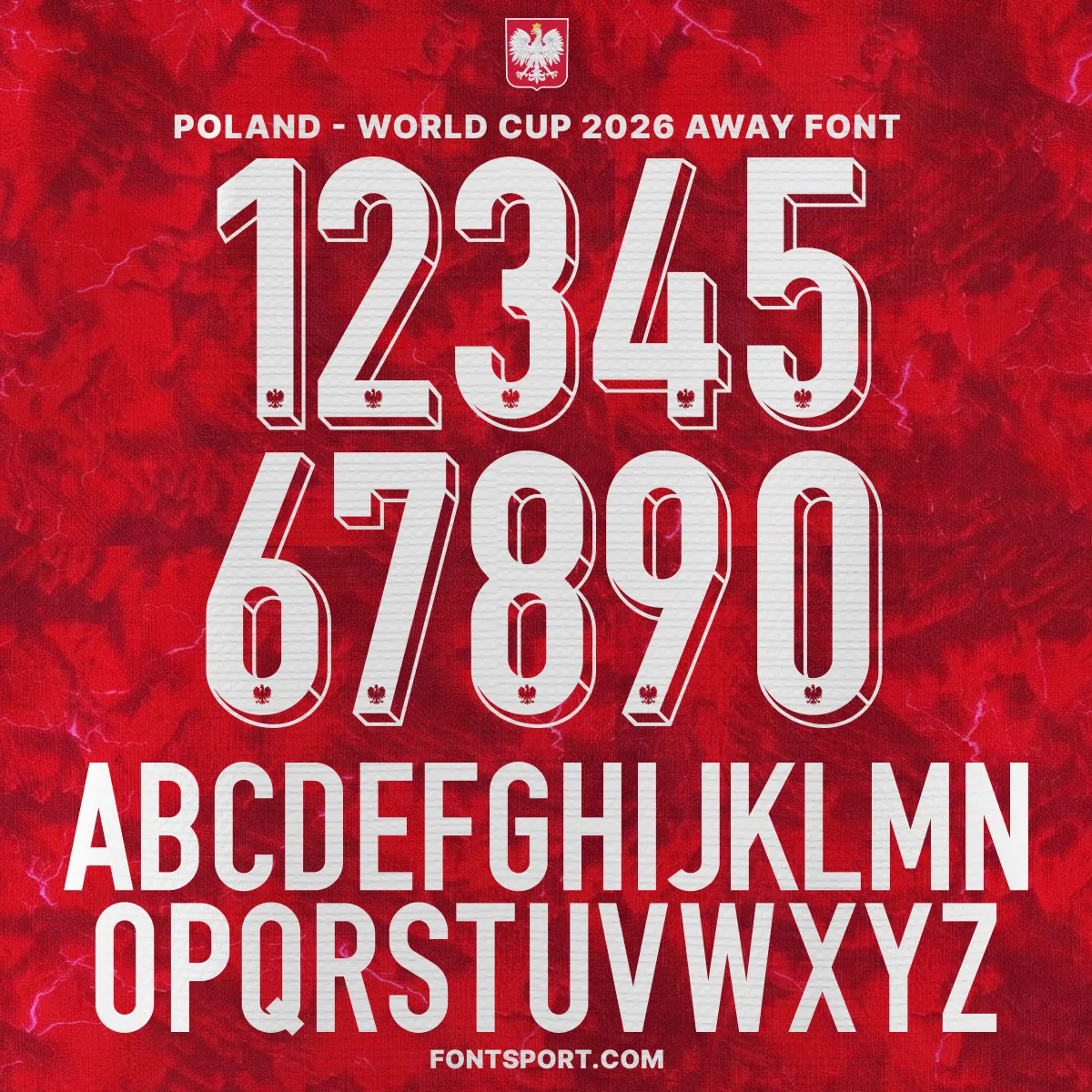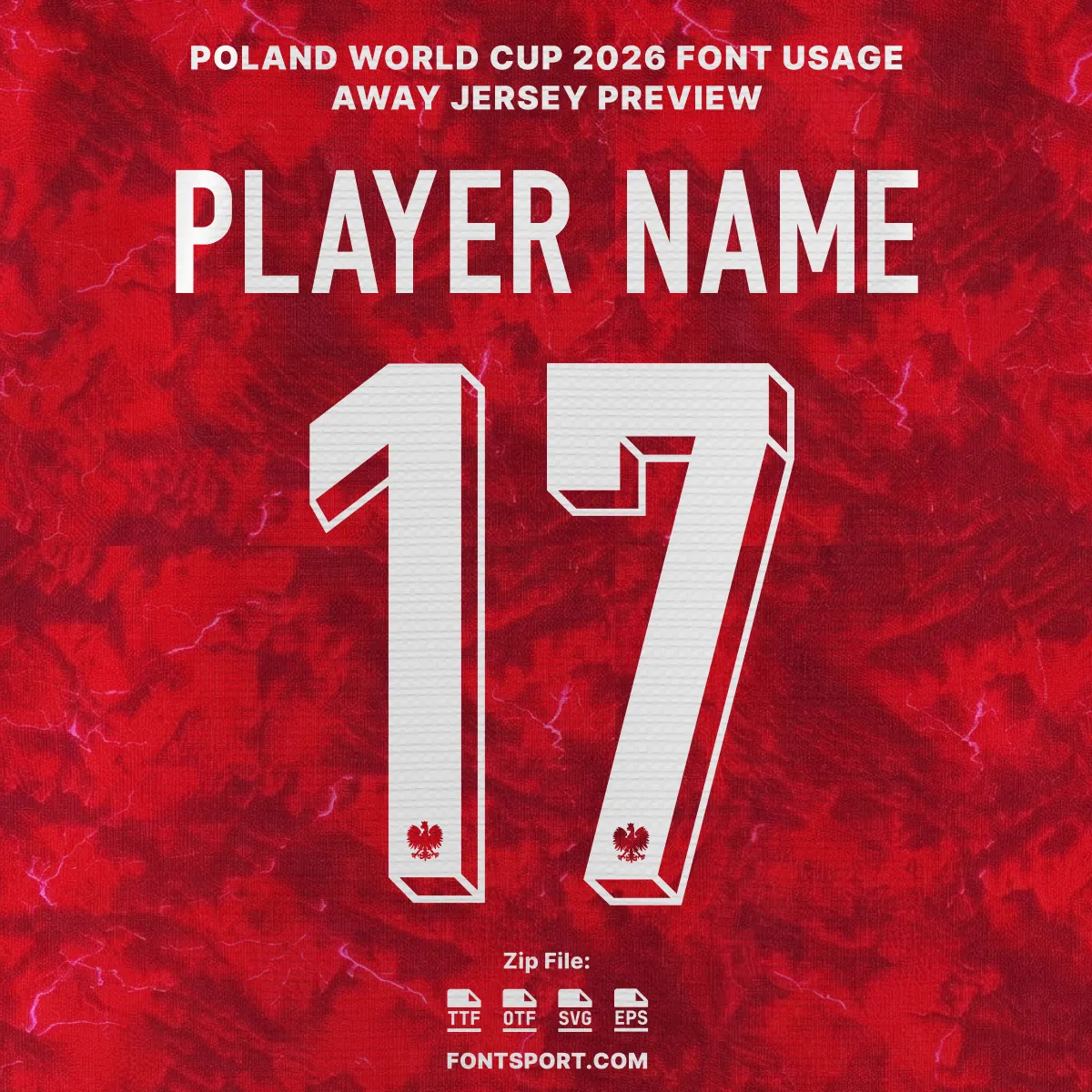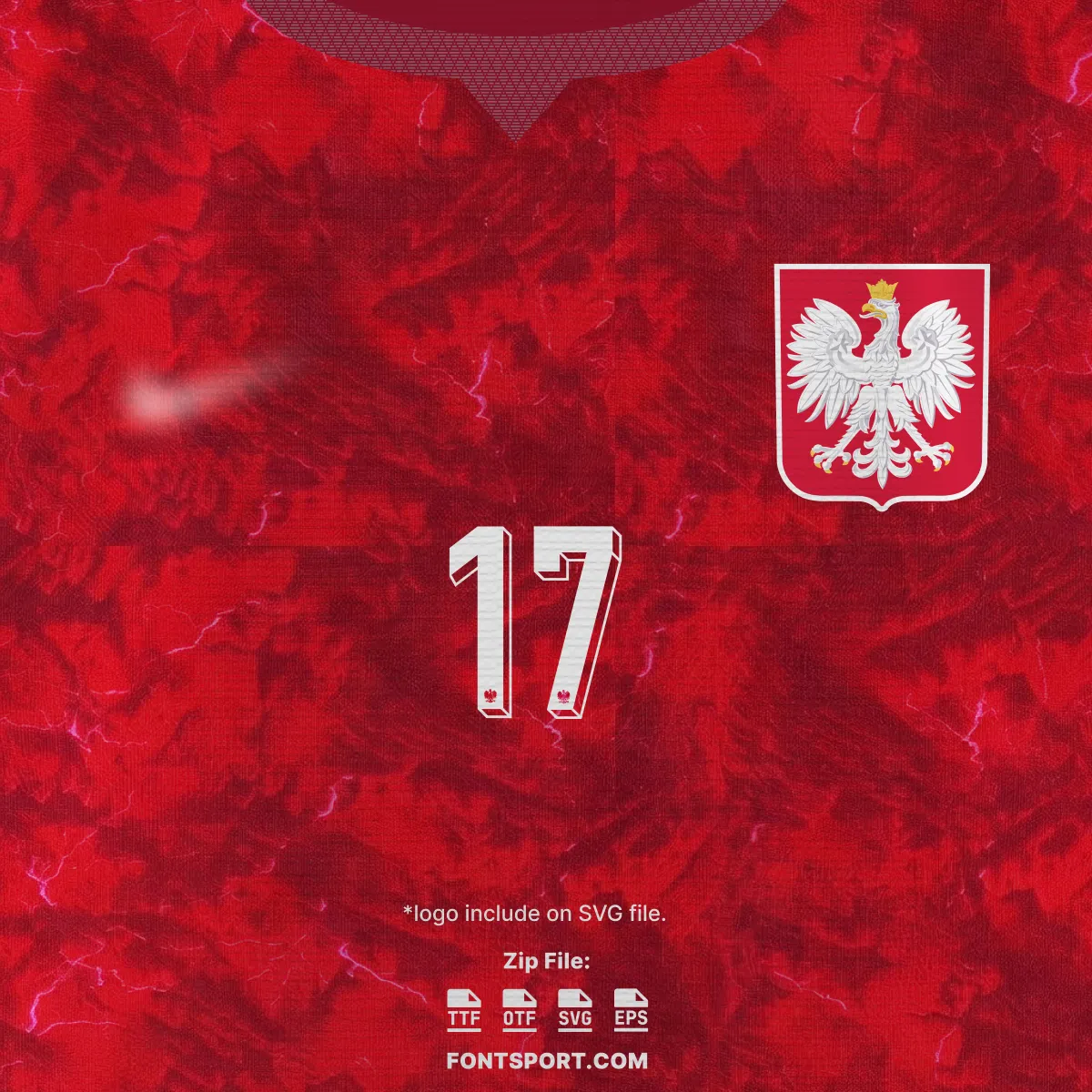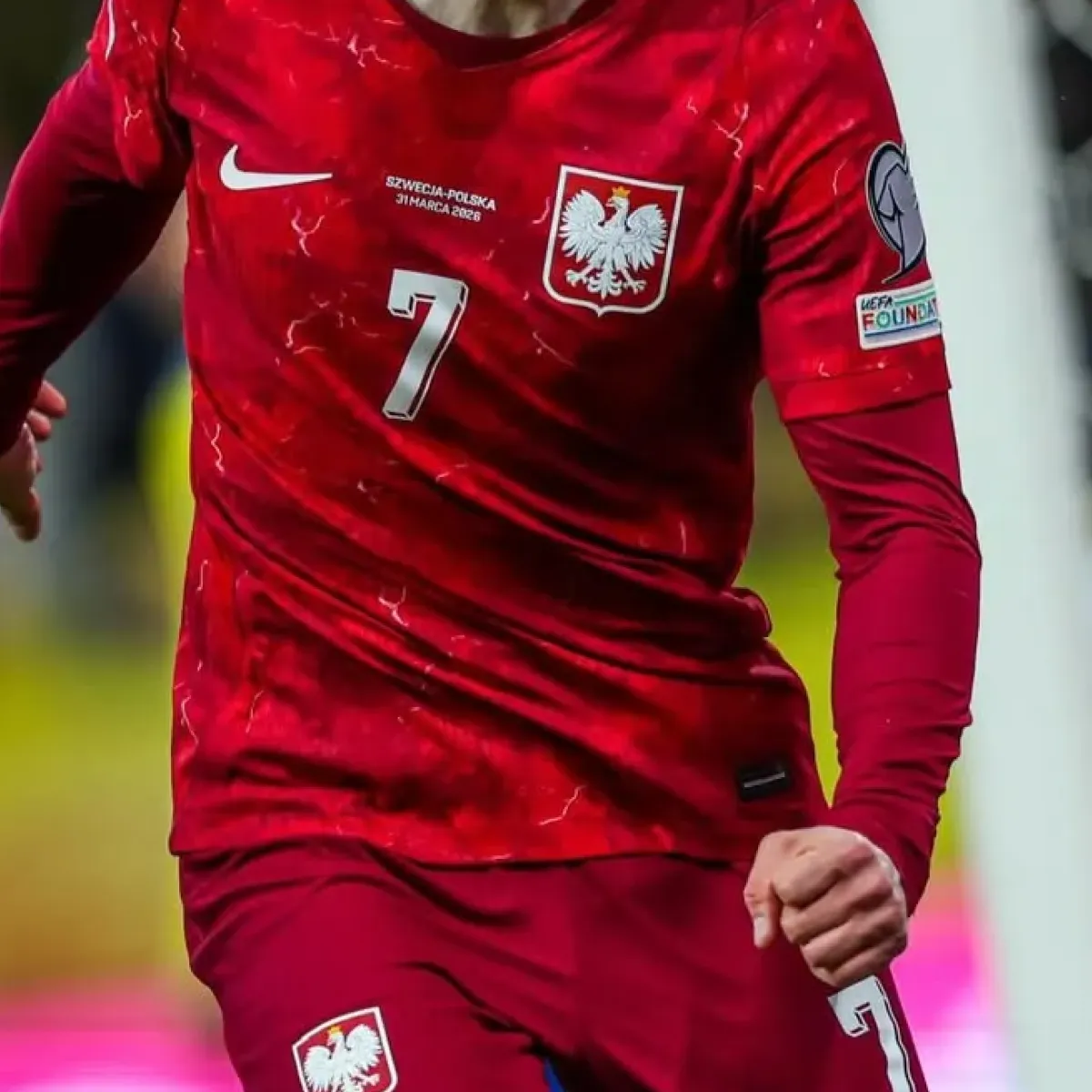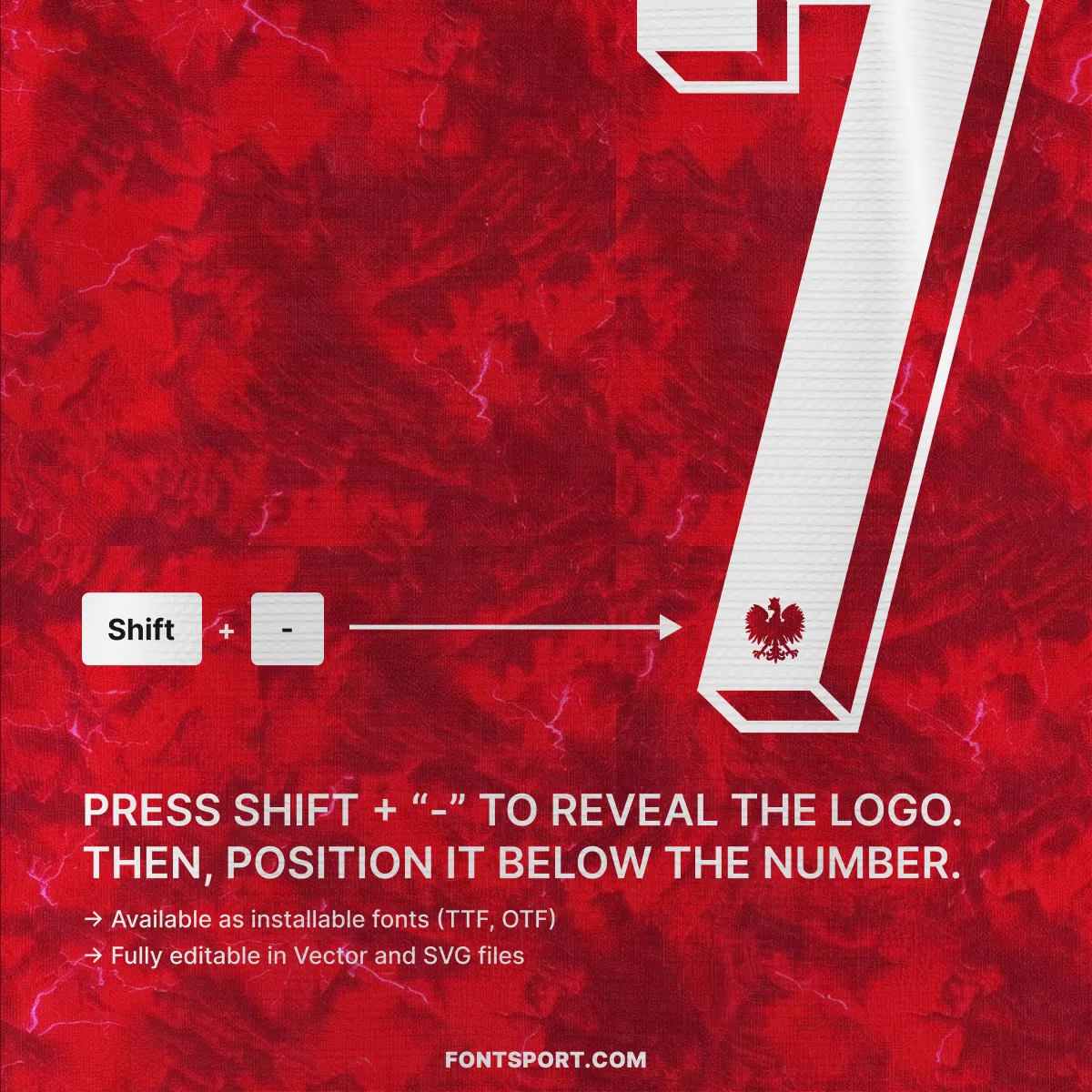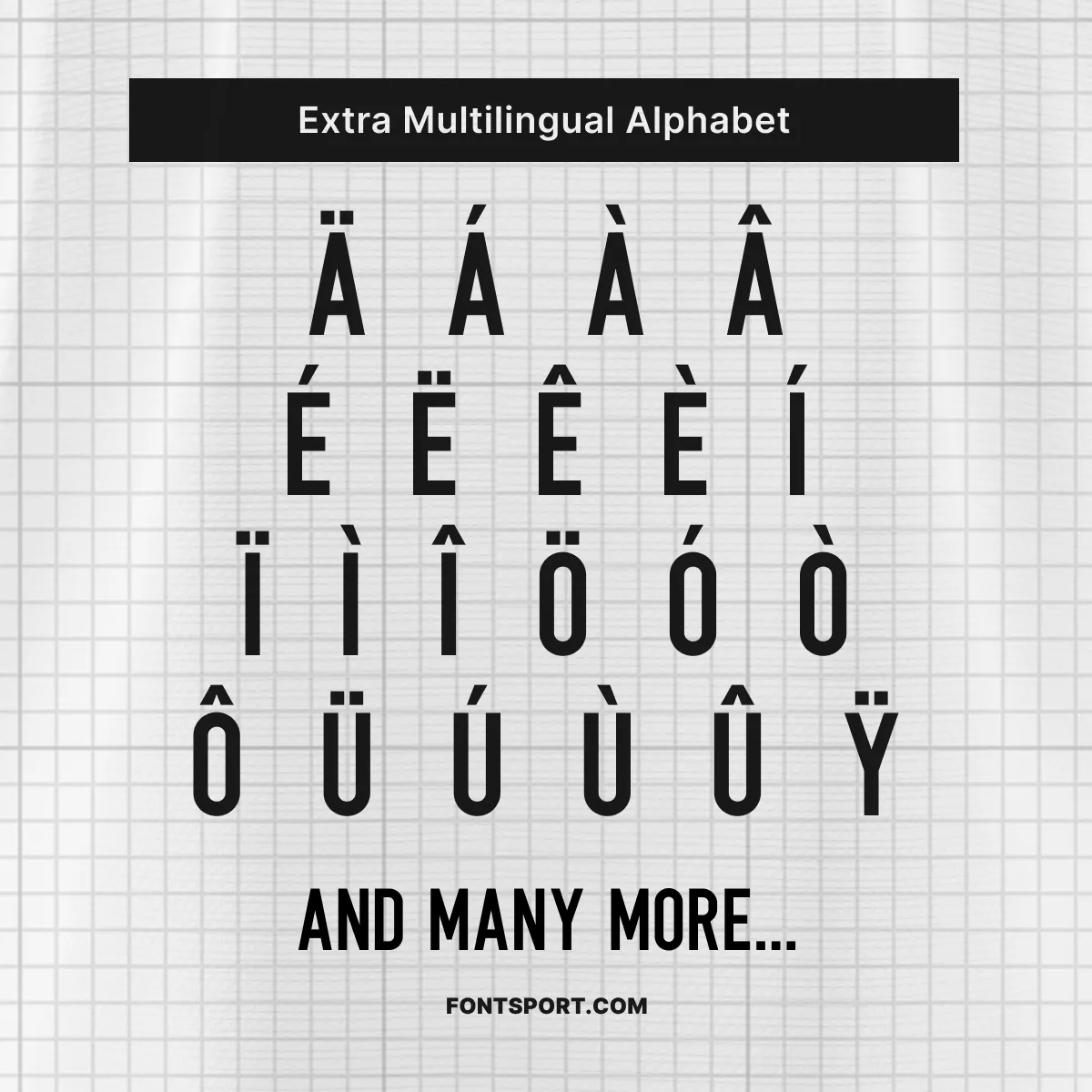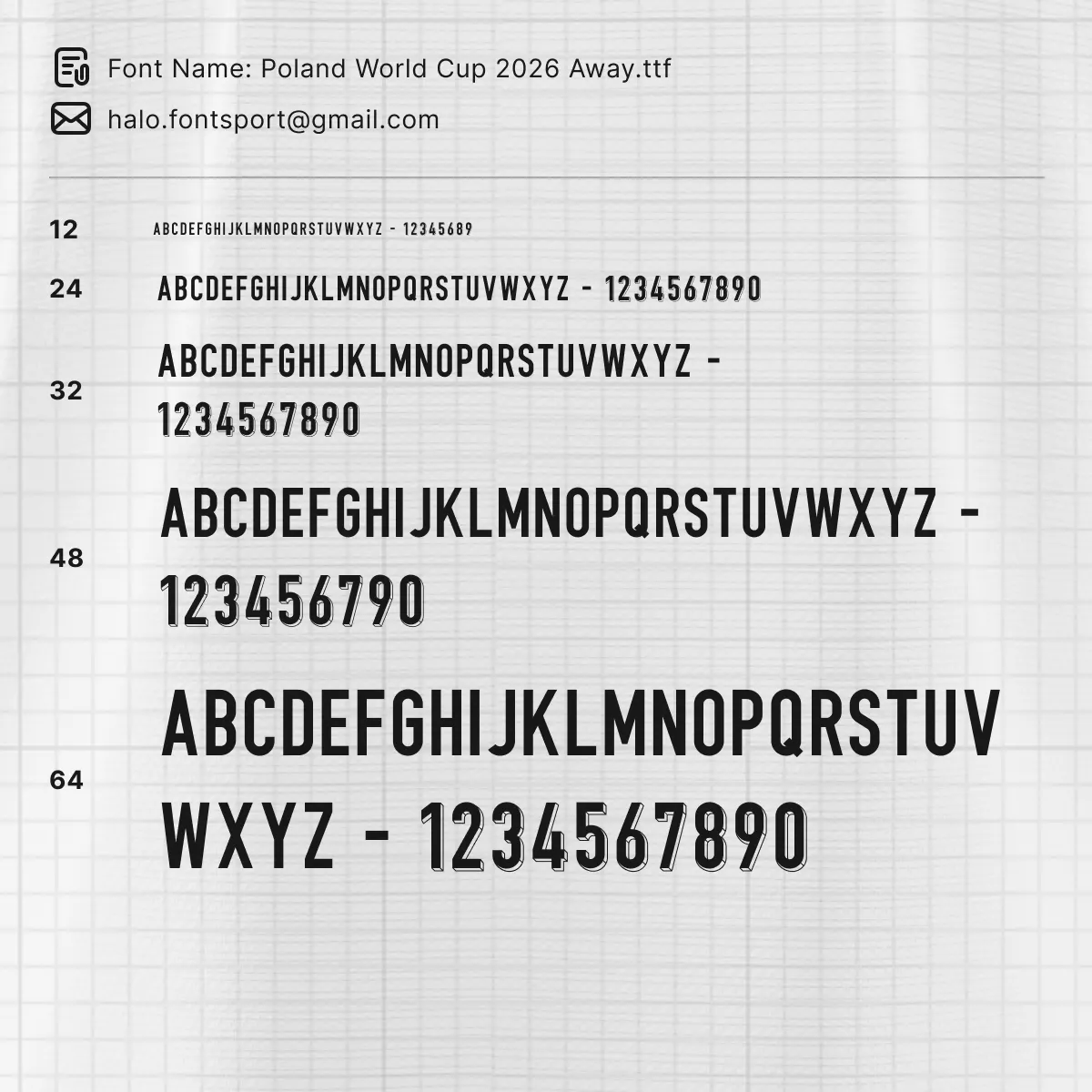
Poland World Cup 2026 Away Font Kit – Authentic National Team Typeface
The Poland World Cup 2026 away font kit captures the sharp, tall lettering style seen on Poland’s away-era national team graphics and shirt applications from the 2026 cycle. The design feels bold and clean. It also keeps a strong vertical stance that reads clearly from distance.
Moreover, this typeface is shaped for designers who want a match-accurate look across jersey mockups, fan edits, and football branding pieces. Each character is crafted to reflect the proportions, spacing, and angular cut details visible in the kit presentation shown in your product images.
Key Visual Identity of the Font
Typography Style
This Poland away lettering uses a condensed uppercase structure with firm edges and a confident silhouette. As a result, names stay readable on shirts, posters, and digital layouts without losing the national-team feel.
Number Design
The numerals are tall, geometric, and slightly beveled in appearance. In particular, the number set carries a layered match-print effect that gives the kit a modern tournament-era look.
Crest Detail
Several preview images show a small eagle detail placed beneath the number. Therefore, this kit is especially useful for creators who want a fuller Poland shirt-style presentation in editable formats.
- ✅ Full uppercase A–Z & numbers 0–9 in Poland’s 2026 away style
- ✅ Poland eagle/logo placement feature as shown in the product previews
- ✅ Multilingual Latin character support with extra diacritics
Why Designers & Fans Choose This Font Kit